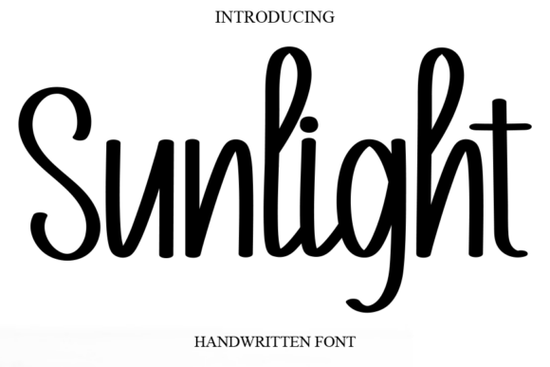
If you’re looking for a handwritten script that feels warm, personal, and effortlessly stylish, Sunlight Font might be exactly what your next project needs. It’s the kind of typeface that doesn’t shout for attention instead, it gently invites the viewer in with soft curves and a natural flow. Whether you’re designing wedding invitations, branding materials, or seasonal greeting cards, this font adds a touch of romance without feeling overly formal.
What makes Sunlight Font work so well for handmade and elegant designs?
The charm of Sunlight lies in its balance. It’s cursive enough to feel artistic and expressive, but not so ornate that it becomes hard to read. That’s why it pairs beautifully with projects like boutique packaging, fashion lookbooks, or even teacher appreciation notes yes, it’s versatile enough to cross from professional branding into heartfelt personal touches. If you’ve ever loved the relaxed elegance of Teacher Notes, you’ll find Sunlight has a similar warmth, just with a slightly more polished finish.
It also scales well. Use it large for logos or headlines, or small for captions and quotes the letterforms hold up without losing their personality. And because it’s designed to mimic natural handwriting, it avoids that “too-perfect” digital stiffness that can make other script fonts feel cold.
Where should you use Sunlight Font to get the most impact?
Here are some real-world uses where this font shines:
- Wedding stationery Invitations, menus, place cards. Pair it with clean sans-serifs for contrast. You might also explore Wedding Day if you want something with more flourish for formal events.
- Small business branding Coffee shops, boutiques, florists. The casual elegance fits brands that want to feel approachable yet refined.
- Print-on-demand products Mugs, tote bags, journals. Customers love fonts that feel “handwritten” it adds perceived value and uniqueness.
- Social media graphics Quotes, promotions, announcements. Its readability at smaller sizes makes it surprisingly practical for digital use too.
- Crafting and DIY projects Vinyl decals, scrapbooking, embroidery patterns. The smooth strokes translate well to cutting machines and hand-lettered styles.
How does it compare to other popular script fonts?
If you’ve used Genty before, you know it leans bold and dramatic great for posters or packaging that needs to grab attention. Sunlight is its quieter cousin: still confident, but softer around the edges. For farmhouse or rustic themes, you might normally reach for Farmhouse Font, which has that textured, country vibe. Sunlight offers a smoother, more modern alternative while keeping the same cozy feeling.
And if you’re nostalgic for playful Disney-style lettering, Disney Font Script delivers that whimsical bounce. Sunlight doesn’t try to compete there instead, it fills the space between fun and fancy, making it perfect for everyday elegance.
Any tips for pairing it with other fonts?
Avoid pairing Sunlight with other scripts it can get visually noisy. Instead, try these combinations:
- A minimalist sans-serif like Montserrat or Lato for body text or subheadings.
- A thin serif like Playfair Display for contrast in editorial layouts.
- A bold condensed font for headlines when you want Sunlight to play a supporting role as a subheading or accent.
Keep color palettes soft and warm creams, blush pinks, sage greens to match the font’s personality. Dark backgrounds? Go for off-white or gold to keep it glowing, not harsh.
Is it worth buying for occasional use?
If you only design a few times a year, you might wonder if it’s worth the investment. Here’s the thing: script fonts like this one tend to get reused across multiple projects once you have them. One purchase could cover your holiday cards, spring sale banners, client thank-you notes, and summer product launches. Plus, Creative Fabrica often includes commercial licenses, so you’re covered for client work or POD platforms.
You can check out the full details for Sunlight Font on their site including alternate characters, ligatures, and language support to see if it fits your workflow.